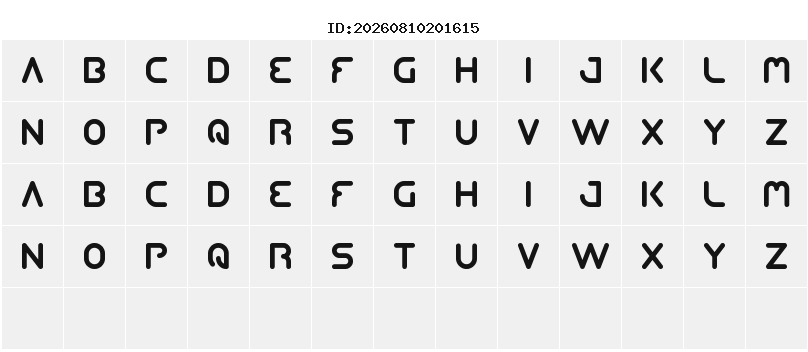
• Font Name: QUEEN OF THE MODERN AGE
About QUEEN OF THE MODERN AGE.ttf
QUEEN OF THE MODERN AGE.ttf is a modern, elegant sans-serif font designed for ultimate readability and visual harmony. Perfect for branding, headlines, web design, and print materials.